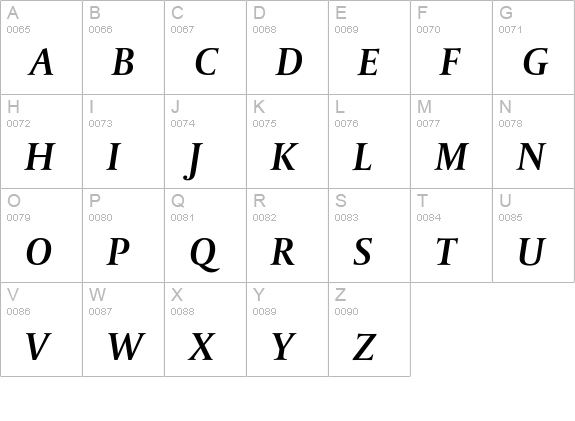
DTLParadoxTCaps-BoldItalic Font Details
DTLParadoxTCaps-BoldItalic is a striking and modern typeface that exudes confidence and sophistication. With its bold, italicized design, this font is perfect for making a statement in headlines, titles, and branding materials. The unique blend of sharp angles and elegant curves gives DTLParadoxTCaps-BoldItalic a distinctive and memorable look that will make your projects stand out. What's even better is that DTLParadoxTCaps-BoldItalic is available for free download at FontsMarket.com. This means you can easily access this high-quality font and use it in your designs without any cost. Whether you're working on a professional project or a personal creative endeavor, DTLParadoxTCaps-BoldItalic is a versatile and stylish choice that will elevate your typography game. Download it now and unleash your creativity with this impressive font.